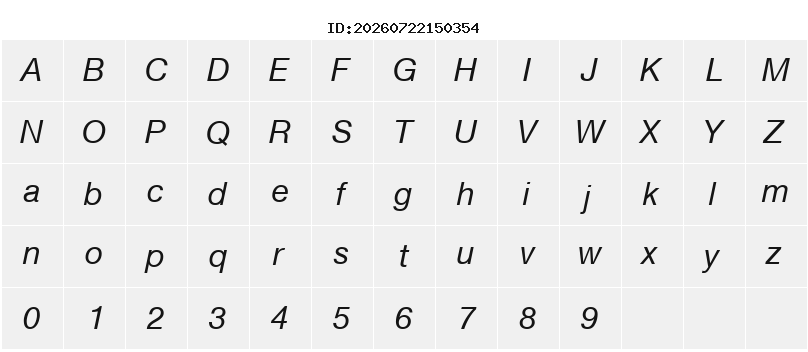
Helvetica CE 55 Roman Preview
• Font Name: Helvetica CE 55 Roman
• Full Font Name: Helvetica Neue CE 56 Italic
• PostScript Name: HelveticaNeueCE-Italic
About Helvetica CE 55 Roman.ttf
Helvetica CE 55 Roman.ttf is a modern, elegant sans-serif font designed for ultimate readability and visual harmony. Perfect for branding, headlines, web design, and print materials.